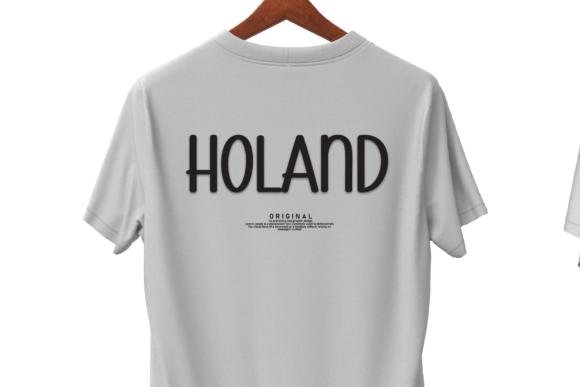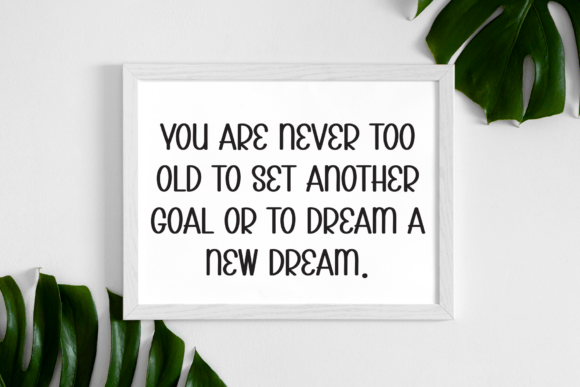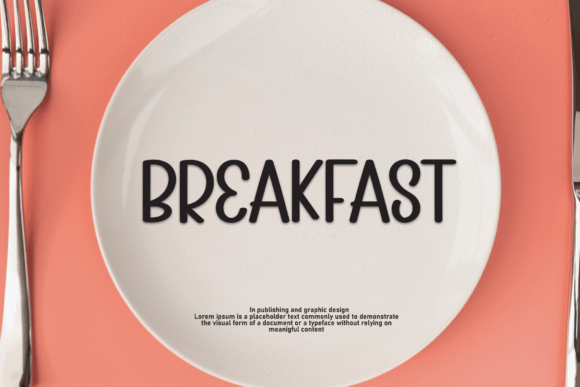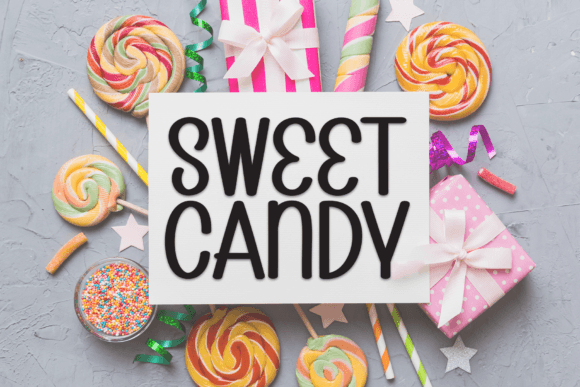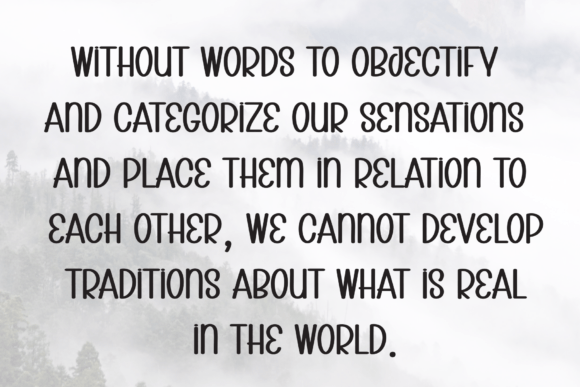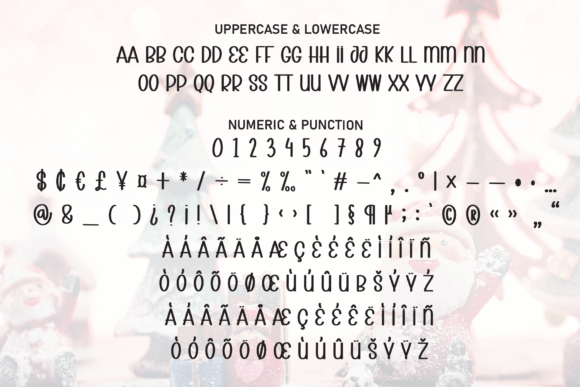
The Magic of Amazing Christmas Font: A Designer’s Delight
It’s happened to the best of us: you’re working on a holiday project, and the design just isn’t coming together. The colors are great, the graphics are fun, but something’s missing. That’s when it hits you – the perfect font can make all the difference. I recall a particularly stressful holiday season when I was working on a client’s Christmas card. I had the design almost finished, but it just felt off. That’s when I stumbled upon the Amazing Christmas font, and it was like a breath of fresh air.
I’ve had the pleasure of working with the Amazing Christmas font on several projects, and here’s my honest review:
- ✨ Natural, flowing strokes that give it a relaxed and friendly vibe
- ✅ Perfect for personal projects, social media, and invitations
- ✅ Effortless, charming touch that adds warmth and authenticity to any design
- ✅ Easy to read and works well in various sizes
While Amazing Christmas is a wonderful font, it’s not perfect. Here are a few quirks to keep in mind:
- 🤔 Limited formal settings: This font is casual and relaxed, so it might not be the best fit for very formal or traditional designs
- ⚠️ Some letters may appear a bit irregular due to its handwritten nature, but this adds to its charm
- Experiment with OpenType features like ligatures and stylistic alternates to add some personality to your text
The Story Behind Amazing Christmas
The Amazing Christmas font was designed with the intention of capturing the warmth and magic of the holiday season. Its creator aimed to craft a font that felt approachable and friendly, perfect for personal projects and everyday designs. While the exact story behind the font’s creation is unclear, its charm and character have made it a favorite among designers and crafters.
| Font Name | Amazing Christmas Font |
| What type of designs is Amazing Christmas best suited for? | Amazing Christmas is perfect for personal projects, social media, and invitations. Its casual, handwritten style adds a charming touch to any design. |
| Is Amazing Christmas a difficult font to read? | No, Amazing Christmas is designed to be easy to read, even at smaller sizes. Its clear, flowing strokes make it perfect for a variety of design applications. |